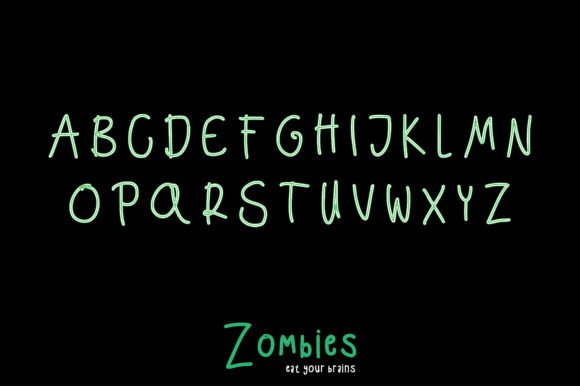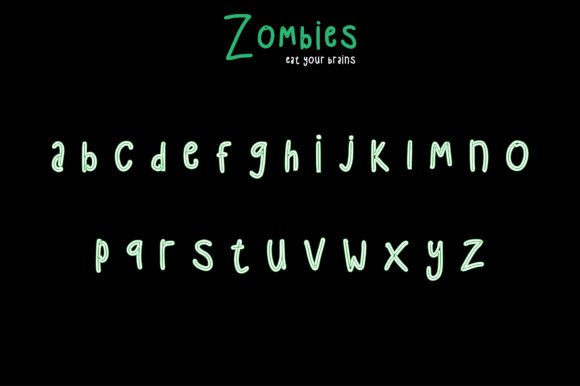
Zombies Font
About Zombies Font
Zombies is a lively and whimsical handwritten font designed to infuse a sense of fun and quirkiness into your projects. Tailored for a range of applications, this font is a fantastic choice for cartoon-related designs, children’s games, or any creative endeavor that seeks to add a playful and quirky touch.
The exuberance of Zombies is evident in its playful strokes and whimsical detailing. It brings a lively and animated feel to the text, making it an ideal companion for cartoon characters, dialogue, and illustrations. In children’s games, Zombies becomes a captivating element that enhances the overall enjoyment, capturing the imagination of young audiences.
The font’s quirky charm makes it versatile for various design projects. Whether you’re creating digital media, print materials, or any other form of visual communication, Zombies stands out as a distinctive choice to infuse your designs with a sense of humor and playfulness.
Zombies isn’t just a typeface; it’s a design asset that adds character and personality to your creations. It becomes a fantastic choice to convey a light-hearted and whimsical atmosphere, making your projects memorable and engaging. Embrace the playful spirit of Zombies, and let it be the quirky touch that brings a sense of fun to your designs.